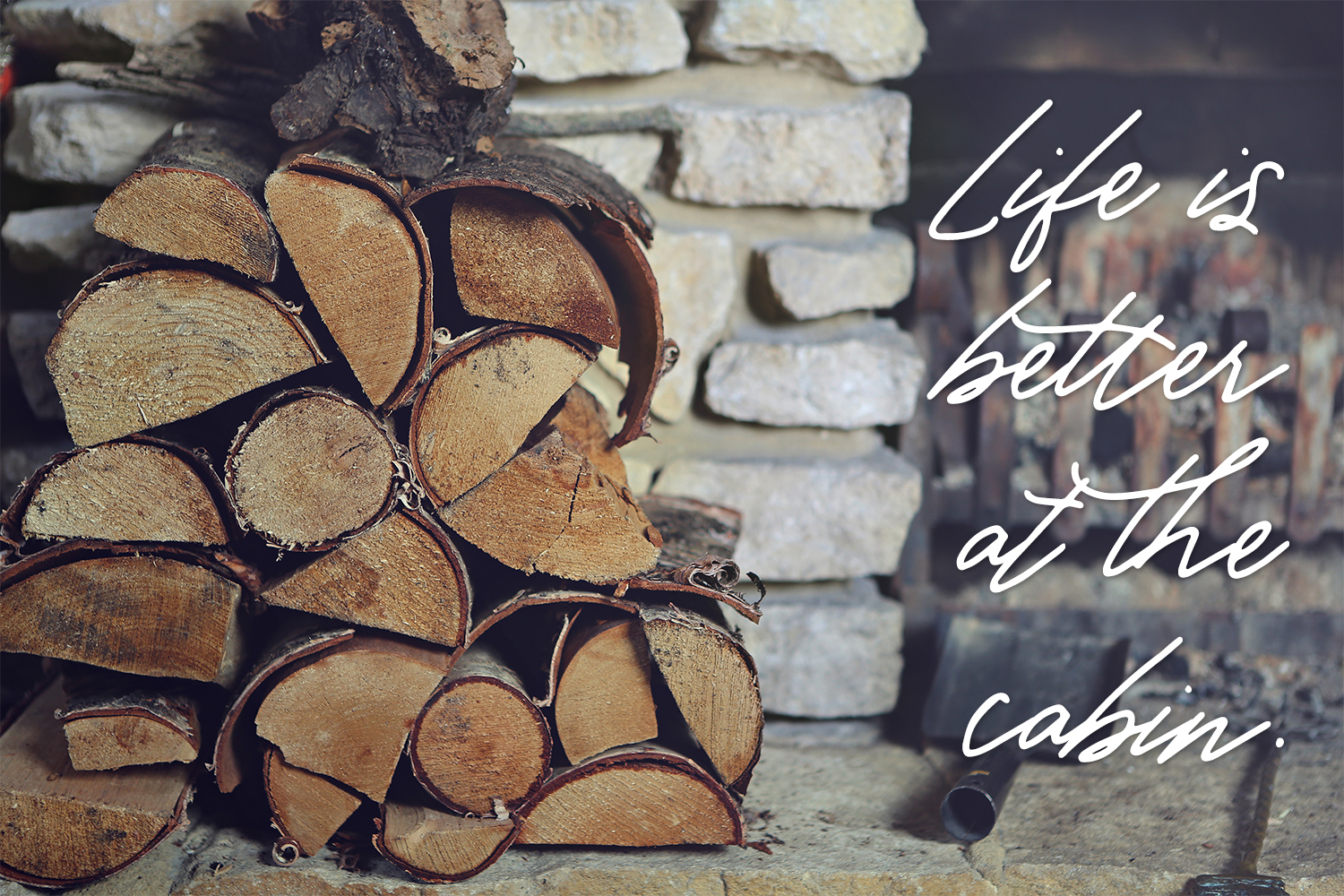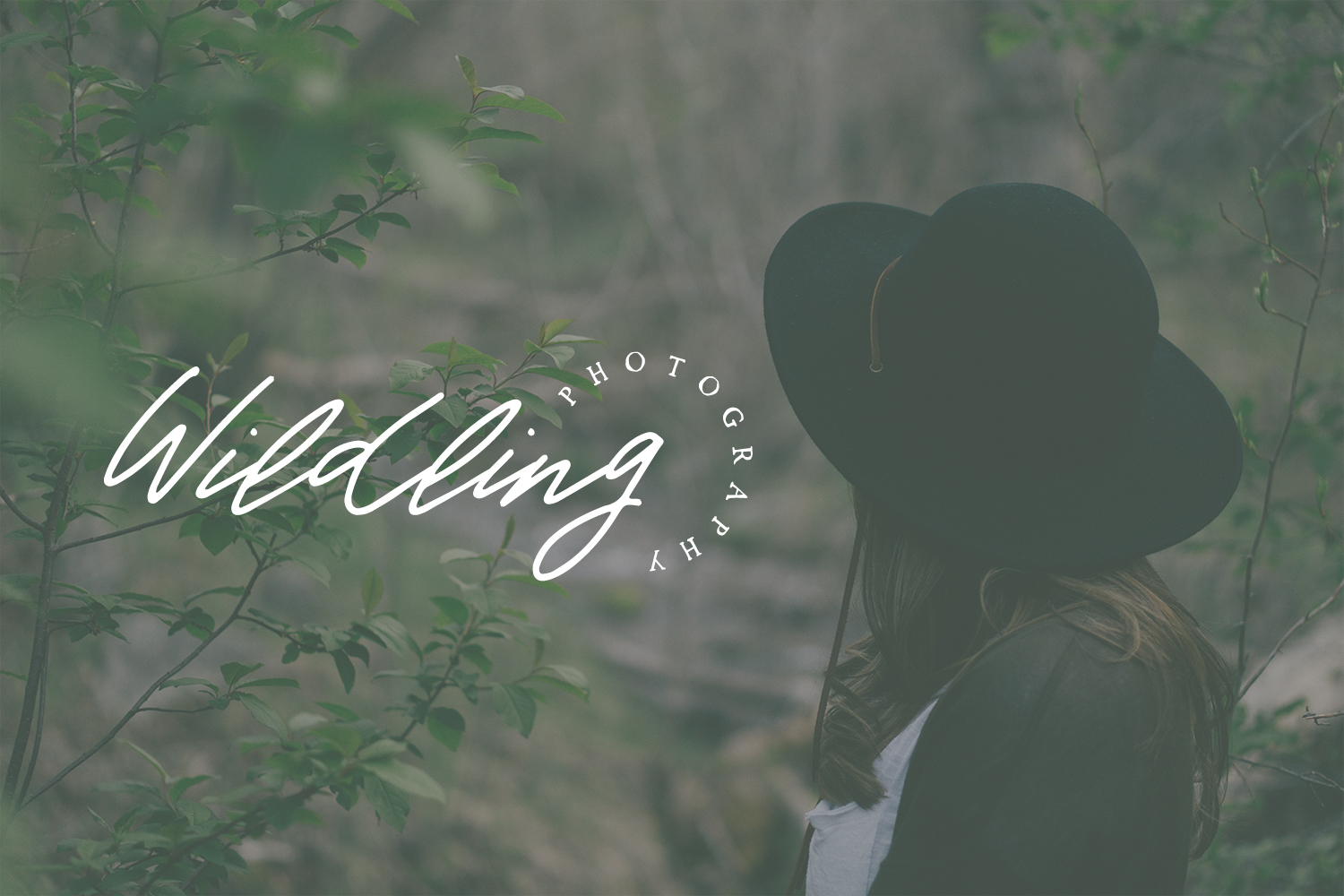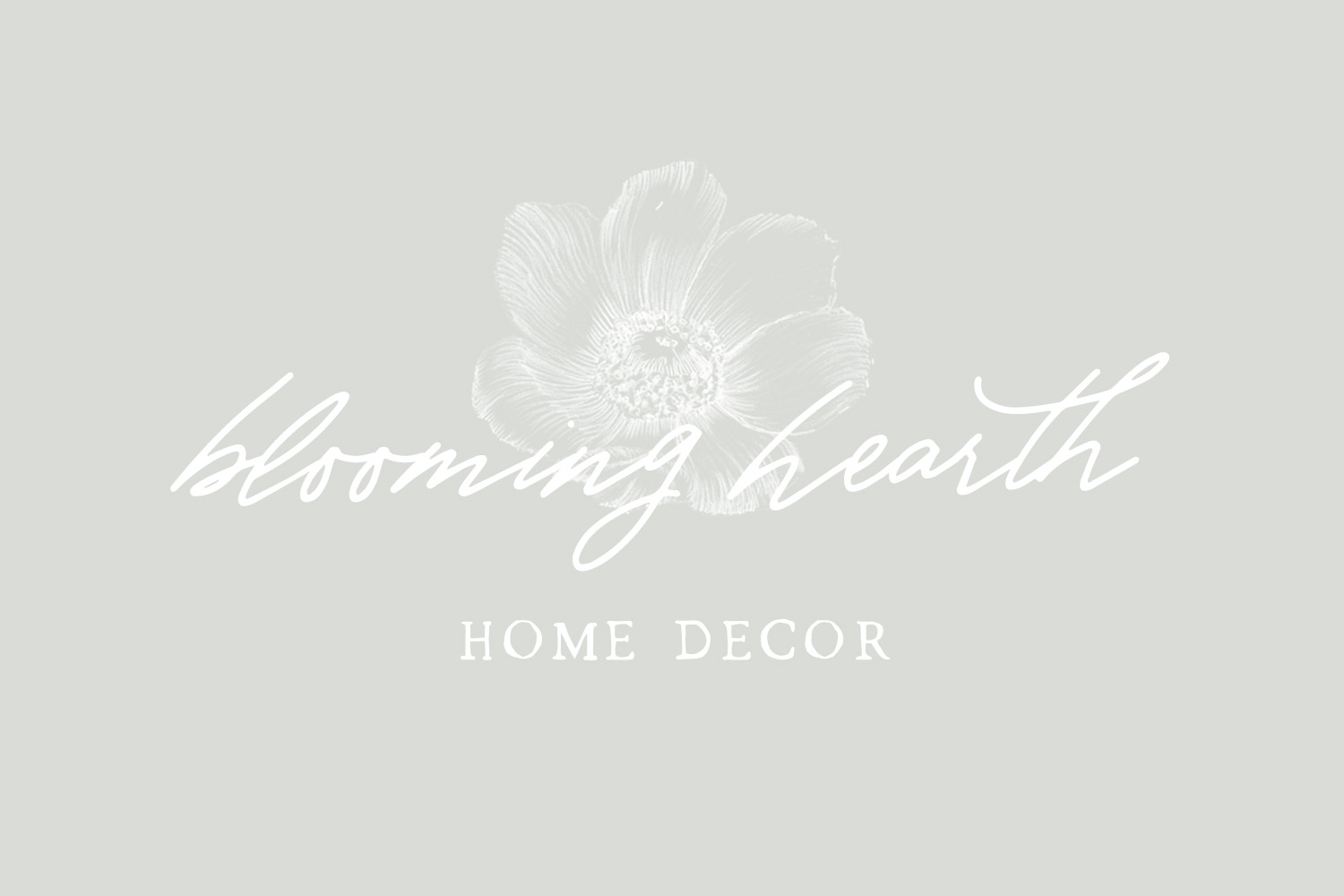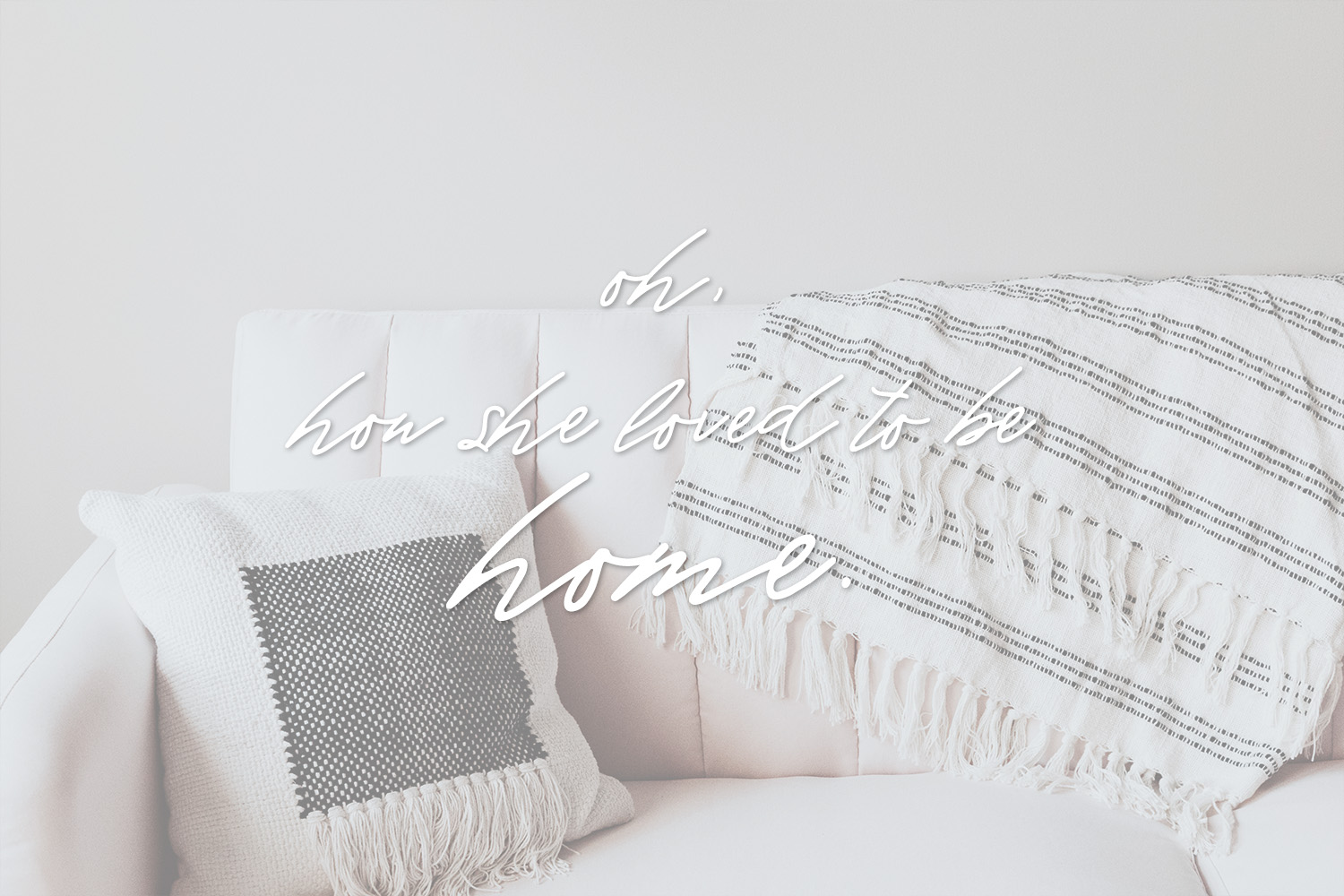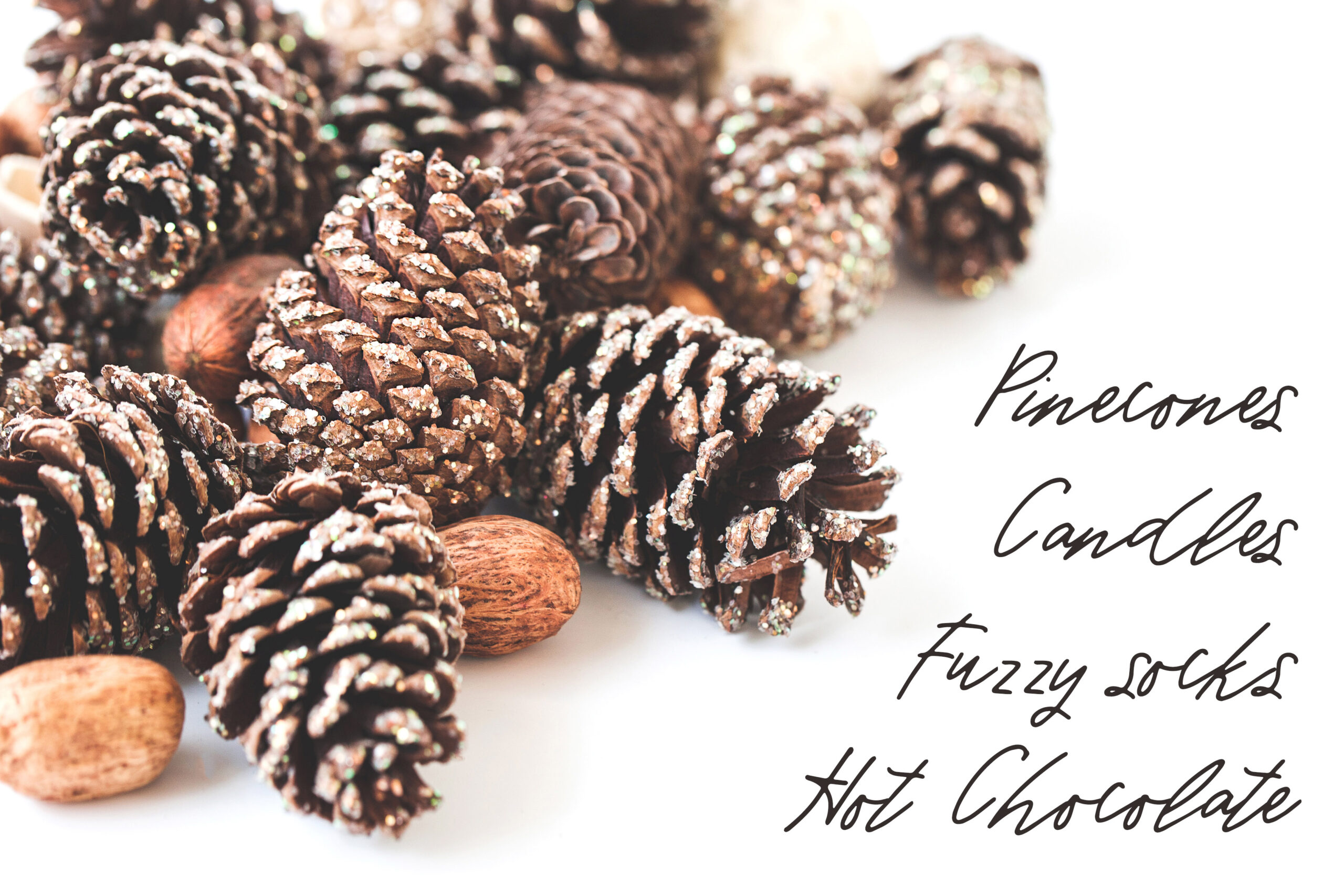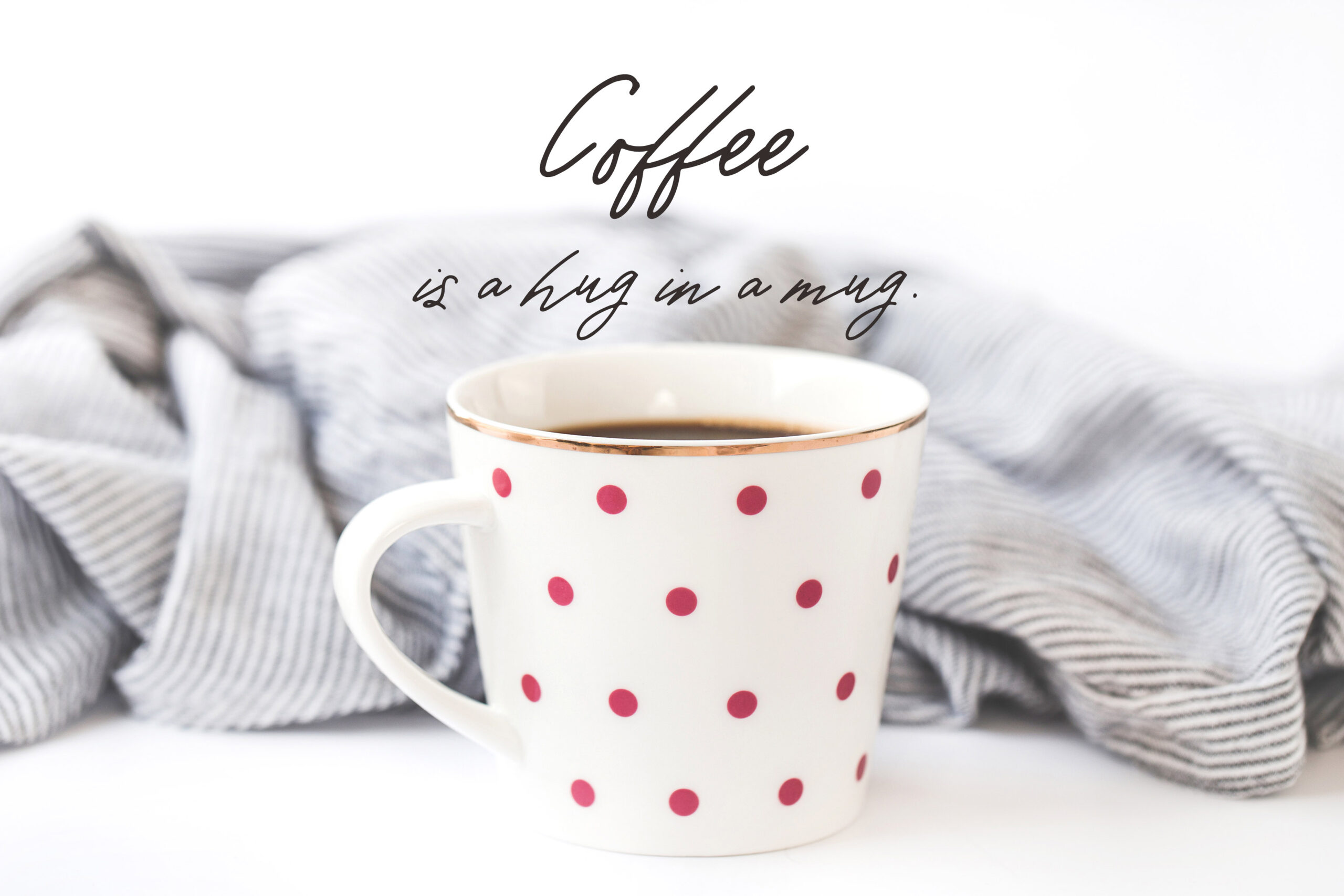
Warmth Font
About Warmth Font
Warmth is a standout casual leaning script.
Warmth Script has a familiar feel, like your bed on a rainy day or a hot mug of coffee on an autumn morning — it’s an awesome addition to your font library for projects desiring an edgy, hand-written requirement or a perfect rustic-modern look.